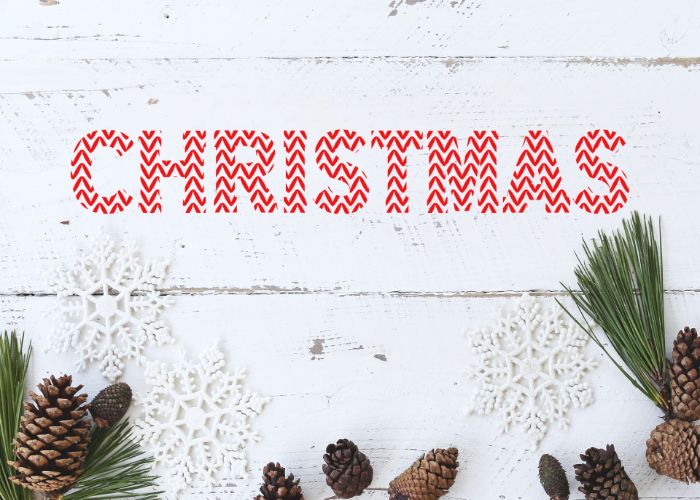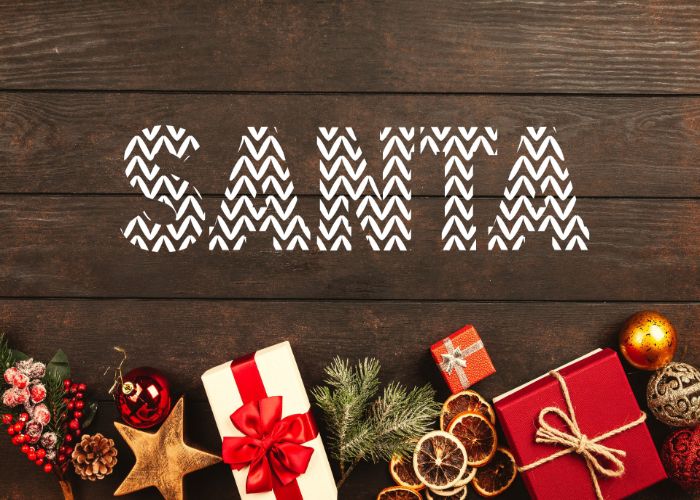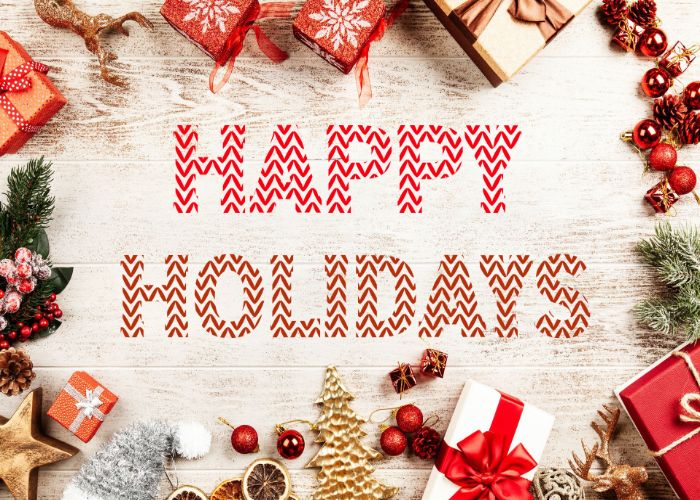
Pixelo’s new free Christmas font is an incredibly unique and interesting decorative font. Warm and festive, this font is idea for designing each of your holiday creations.
You use this freebie to create Christmas cards, t-shirts, other apparels, posters, and mugs.